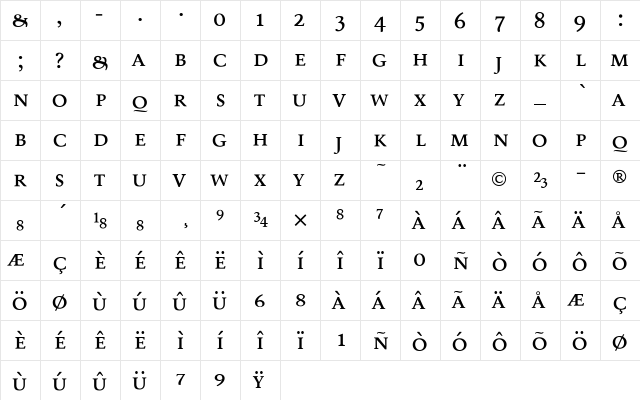
Eco401Scaps Medium
Design Context for Eco401Scaps Typeface
Eco401Scaps offers clean, dependable letterforms without strong stylistic allegiance, making it a practical choice for designers who need flexibility.